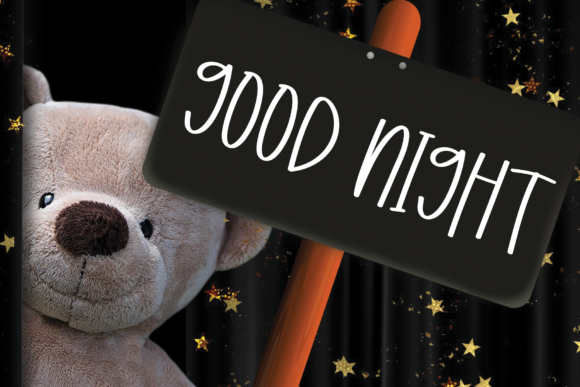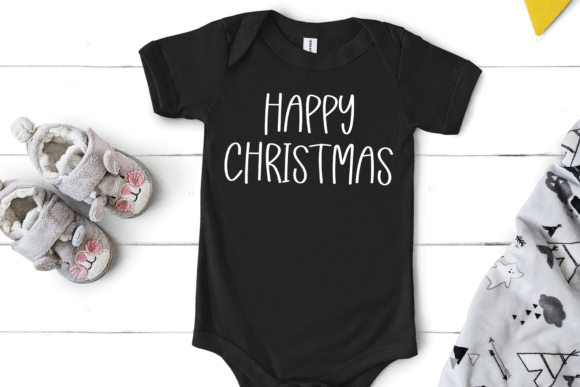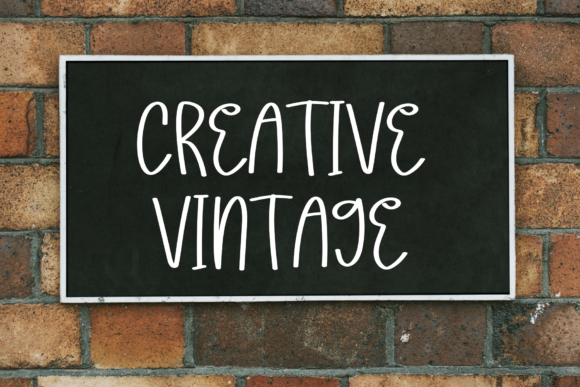
Introduction to Memory Mellody Font
Have you ever stumbled upon the perfect font, and it instantly transports you to a world of endless creative possibilities? That’s exactly what happened to me when I discovered the enchanting Memory Mellody Font. Its delicate and thin lettered script style is like a breath of fresh air, begging to be used in all sorts of creative projects.
As designers, we’re always on the lookout for that special something that elevates our work to the next level. The Memory Mellody Font is just that – a high-quality design resource that adds a touch of elegance and sophistication to any project. With its transparent background, it’s perfect for creating beautiful stationery art, eye-catching social media posts, or even stunning wedding invitations.
Key Features of Memory Mellody Font
- Unique and creative design perfect for various projects, including posters, flyers, and brochures.
- High-quality font with transparent background, ideal for use on any background color or image.
- The font is designed with a high resolution of 300 DPI, ensuring crisp and clear text output.
- This design resource is ideal for use in various creative projects, including branding, advertising, and editorial design.
- Memory Mellody Font is a great addition to any designer’s toolkit, providing a unique and creative element to enhance their work.
Honest Review: Memory Mellody Font
I recently stumbled upon the Memory Mellody Font and I’m excited to share my honest review with fellow designers. This font has the potential to be a valuable design resource for creative projects that require a touch of elegance and sophistication.
- The high-quality design ensures a smooth and seamless experience when using it in various creative projects.
- The font’s transparent background makes it easy to customize and integrate with other design elements.
- The Memory Mellody Font is limited in its character set, which may not be ideal for designers who require a wide range of characters.
- The font’s styling may not be suitable for all types of projects, such as bold or playful designs.
Overall, the Memory Mellody Font is a solid addition to any designer’s toolkit. While it has its limitations, its high-quality design and free download make it an excellent choice for designers who need a elegant and sophisticated font for their creative projects.
The Memory Mellody Font is ideal for various creative projects, including:
- Event branding and marketing materials
- Blog and website design
- Business cards and promotional materials